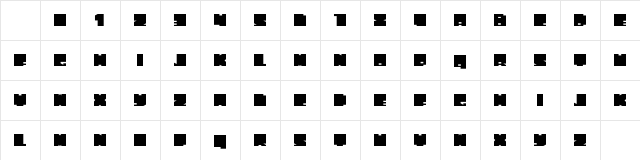
Complete Phat Blox Regular glyph index. Displaying only characters natively supported by Phat Blox Regular font.
Phat Blox is a composed and adaptable typeface that performs quietly and consistently across a wide range of design contexts.